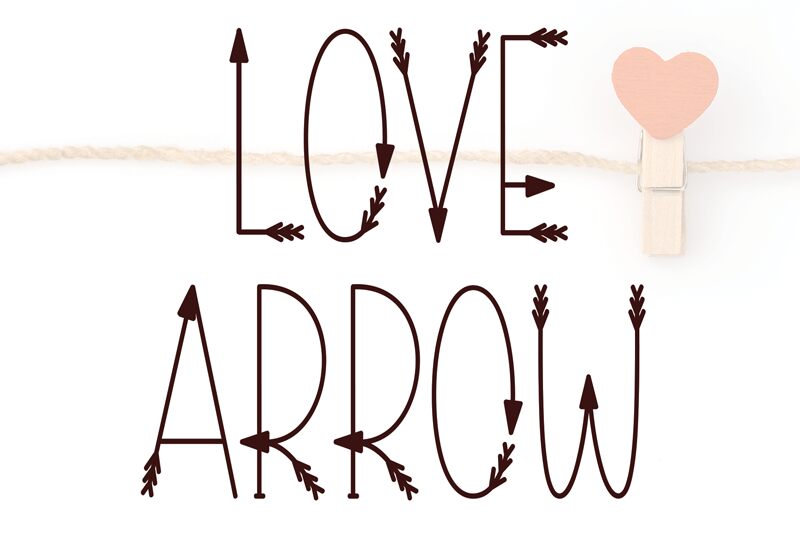
Love Arrow
Love Arrow, designed by Scratchones, is a display font that carries the whimsy of romance with each stroke. This decorative typeface captivates with its playful arrow motifs that pierce through each letter, infusing a sense of charm and affection into the text. Its light and condensed style lends an airy yet cozy feel, perfect for conveying messages of love and endearment.
This font's unique character makes it ideal for special occasions like wedding invitations, Valentine’s Day cards, or any project requiring a touch of love-infused creativity. Love Arrow's enchanting design is not just a choice but an arrow-struck declaration for heartfelt expressions in graphic design.